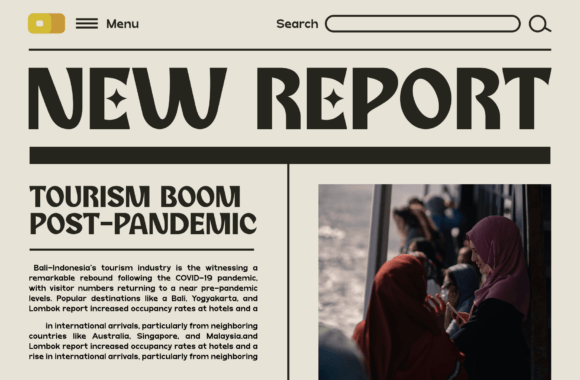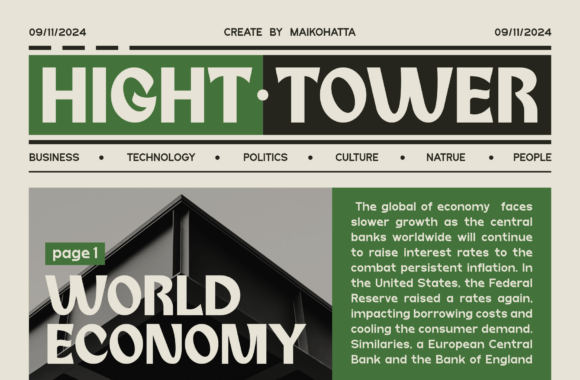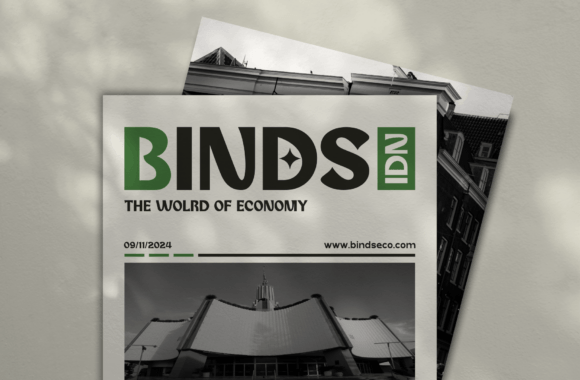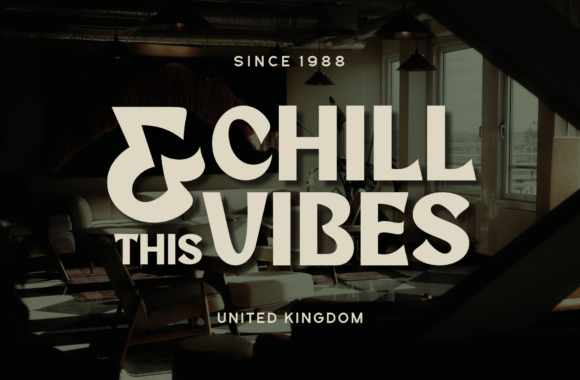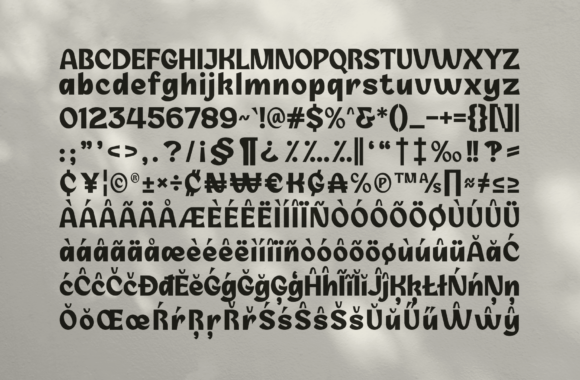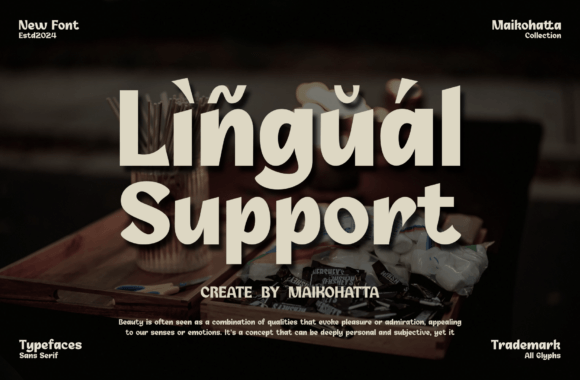
Introduction to Mozie Font
Have you ever stared at a blank page, struggling to bring your creative vision to life? You know, that moment when your imagination is racing, but your design tools seem to be lacking the perfect spark? For designers, finding the right font can be the difference between a mediocre project and a masterpiece.
Enter the Mozie Font, a game-changing sans serif typeface designed to inject joy and playfulness into your creative project. This delightful font is perfect for projects that require a lighthearted touch, such as poster designs, invitation cards, comics, or promotional materials aimed at a younger audience.
Honest Review: Mozie Font
I recently had the opportunity to try out the Mozie Font, and I must say it’s been a game-changer for my creative projects. This font is a design resource that offers a lot of potential for any project.
What works well is the high quality of the font itself. It’s crisp and clean, making it perfect for a wide range of applications. I’ve used it for presentations, social media graphics, and even web design. The Mozie Font also comes with a transparent background option, which is super convenient for creating seamless designs.
One limitation I’ve noticed is that the Mozie Font doesn’t come with as many font styles as some other popular fonts. This might be a drawback for designers who prefer to have a wide range of options.
Overall, I’m really impressed with the Mozie Font. It’s a solid choice for designers looking for a high-quality, free design resource. While it may have some limitations, it’s definitely worth checking out for your next creative project.
The Mozie Font is perfect for creating designs for various industries, including marketing, advertising, and graphic design. It’s also ideal for personal projects, such as creating a portfolio or a blog.